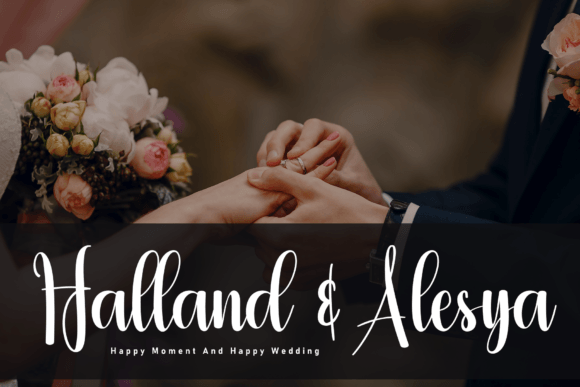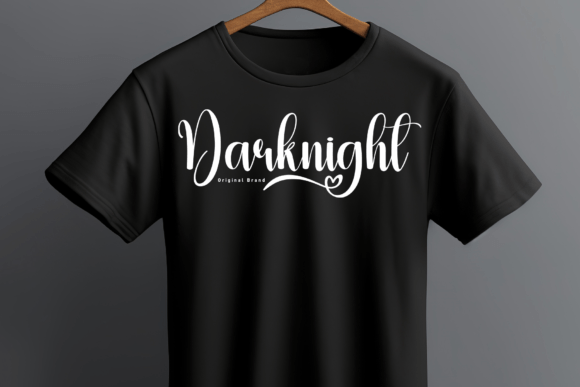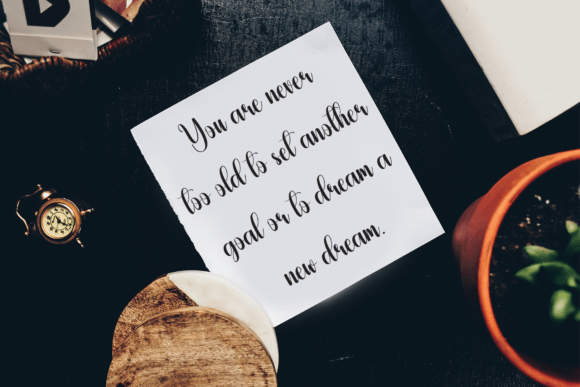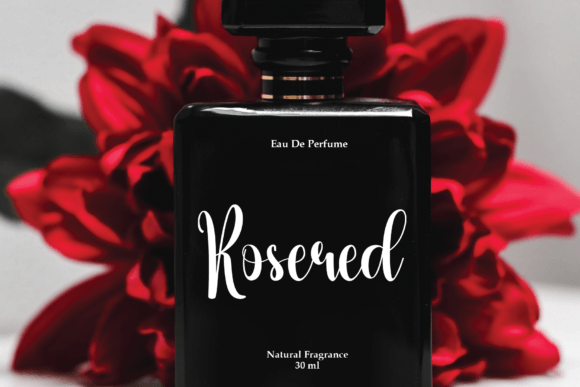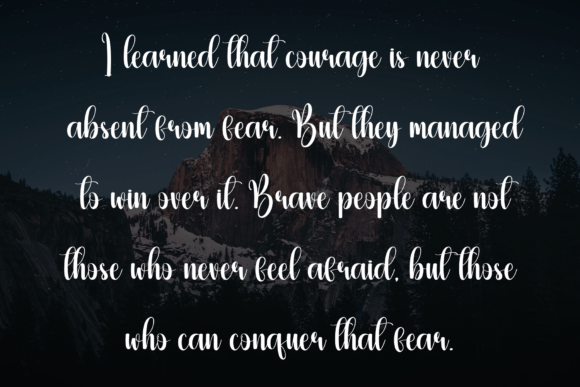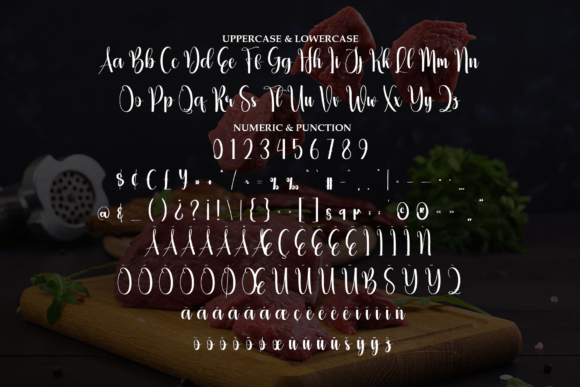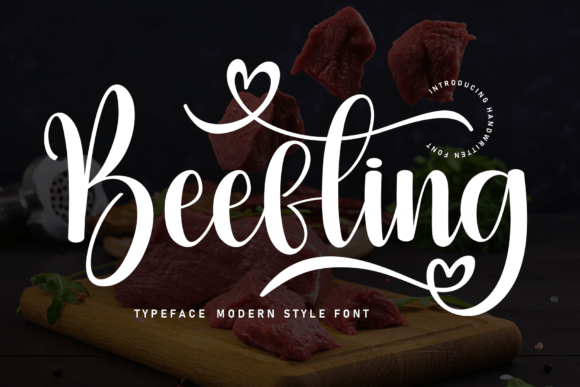
Beefting Font: Elevate Your Designs with Elegance and Timeless Style
Are you on the hunt for a font that adds a touch of elegance and sophistication to your projects? Look no further than Beefting Font, a stunning flowing handwritten font that is sure to capture your heart. With its incredibly distinct and timeless style, Beefting is the perfect choice for designers and crafters looking to create spectacular designs that stand out from the crowd.
The Charm of Beefting Font
Beefting Font is a beautifully crafted font that exudes elegance and refinement. Its flowing handwritten style is characterized by smooth, cursive lines that dance across the page, creating a sense of movement and fluidity. The font’s elegant touch is perfect for adding a touch of sophistication to a wide range of projects, from wedding invitations and branding materials to packaging and digital designs.
What Makes Beefting Font So Special?
So, what sets Beefting Font apart from other fonts on the market? Here are just a few reasons why this font is a cut above the rest:
- Incredibly Distinct Style: Beefting Font has a unique and recognizable style that is sure to make your designs stand out. Its elegant lines and flowing curves create a sense of drama and sophistication that is hard to replicate with other fonts.
- Timeless Appeal: Unlike trendy fonts that quickly go out of style, Beefting Font has a timeless quality that ensures it will remain relevant for years to come. Whether you’re creating a design for a client or working on a personal project, Beefting Font is a safe choice that will always look great.
- Versatility: Beefting Font is incredibly versatile, making it suitable for use in a wide range of projects. From formal events and corporate branding to digital designs and packaging, this font can be used in almost any context.
How to Use Beefting Font in Your Designs
Ready to fall in love with Beefting Font and start using it in your designs? Here are a few tips to get you started:
- Pair it with Other Fonts: Beefting Font pairs beautifully with other fonts, making it easy to create stunning contrast and visual interest in your designs. Try pairing it with a bold sans-serif font for a striking combination.
- Use it for Headlines and Titles: Beefting Font is perfect for headlines and titles, where its elegant lines and flowing curves can really shine. Use it to create eye-catching headings that draw the reader in.
- Experiment with Colors and Textures: Don’t be afraid to experiment with different colors and textures when using Beefting Font. Try pairing it with a bold color or adding a texture to give your design an extra layer of depth and interest.
Why Designers and Crafters Love Beefting Font
Beefting Font has quickly become a favorite among designers and crafters, and it’s easy to see why. Here are just a few reasons why this font has won the hearts of so many creatives:
- Easy to Read: Despite its elegant and flowing style, Beefting Font is incredibly easy to read, making it perfect for use in body text as well as headlines and titles.
- Highly Legible: Beefting Font is designed to be highly legible, even at small sizes. This makes it perfect for use in a wide range of projects, from business cards to billboards.
- Unique and Memorable: Beefting Font has a unique and memorable style that is sure to make your designs stand out. Use it to create designs that are truly unforgettable.
In conclusion, Beefting Font is a stunning flowing handwritten font that is sure to elevate your designs to the next level. With its incredibly distinct and timeless style, Beefting is the perfect choice for designers and crafters looking to create spectacular designs that stand out from the crowd. Whether you’re working on a personal project or creating a design for a client, Beefting Font is a safe choice that is sure to impress.